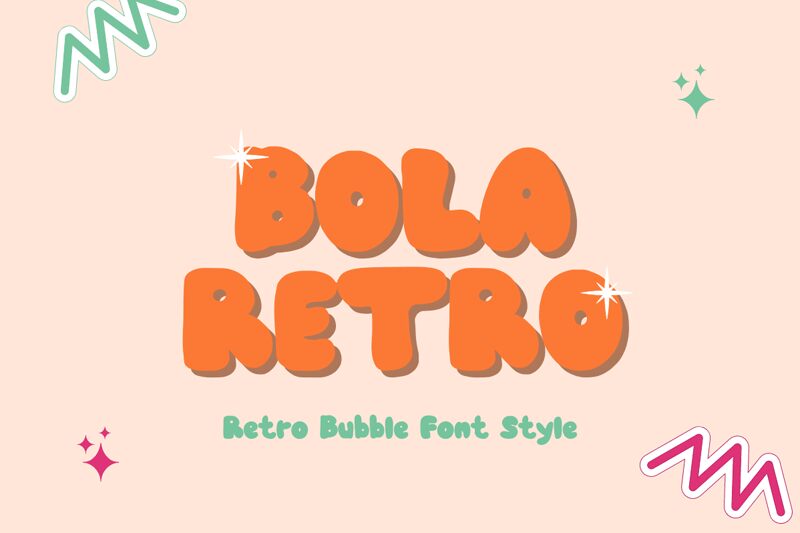
Bola Retro font, crafted by designer Muhammad Afif, is a playful addition to the world of display typefaces. With its cartoon style and bold weight, it captivates with an attention-grabbing presence that is both nostalgic and whimsical.
This font's rounded, bubbly characters evoke a sense of fun and creativity, making it ideal for playful branding projects, eye-catching posters, and lively packaging designs. Its unique aesthetic seamlessly blends retro flair with contemporary charm.
As a free font available for download, Bola Retro offers designers an accessible tool to infuse personality into their visual creations. Whether you're crafting logos or designing vibrant social media graphics, this font provides versatility while maintaining its distinctive character. Embrace Bola Retro for a design that stands out with boldness and vitality.